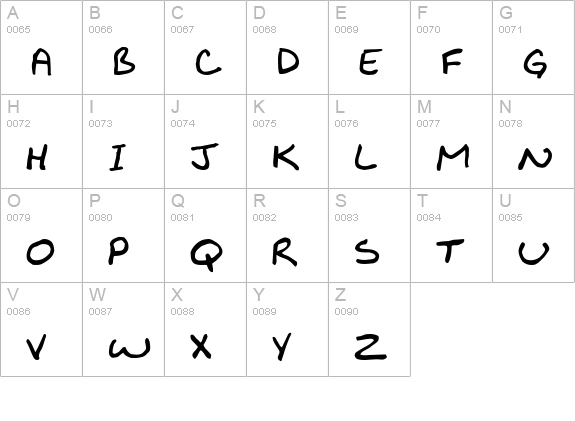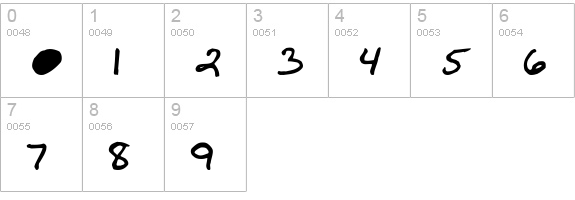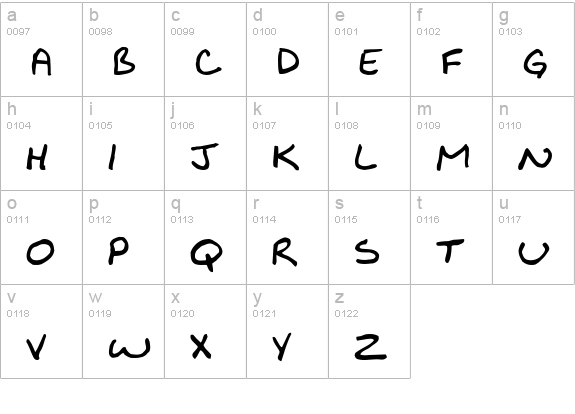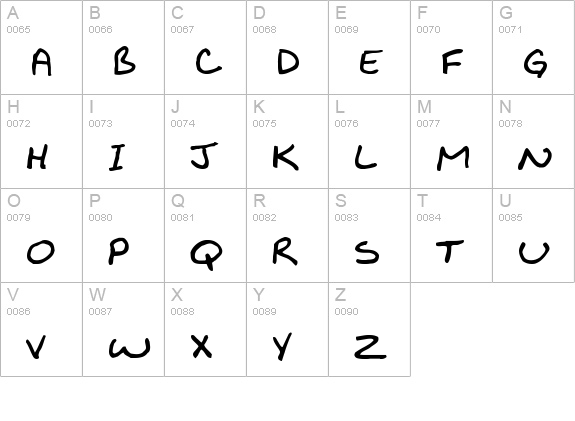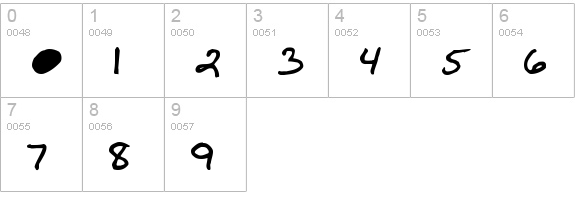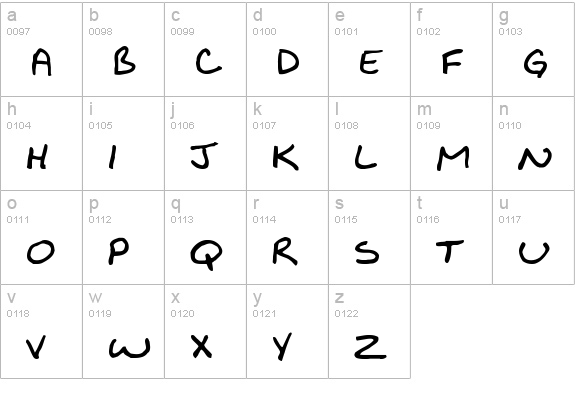
BiklyBoldFont Font Details
BiklyBoldFont is a bold and eye-catching font that exudes confidence and modernity. Its sleek lines and strong presence make it perfect for headlines, titles, and other attention-grabbing designs. This versatile font can be used in a variety of projects, from posters and flyers to branding materials and website headers. The best part? BiklyBoldFont is available for free download at FontsMarket.com. You can easily add this stunning font to your collection and use it in your projects without any cost. Don't miss out on the opportunity to enhance your designs with this striking typeface. Download BiklyBoldFont today and make a bold statement with your typography.